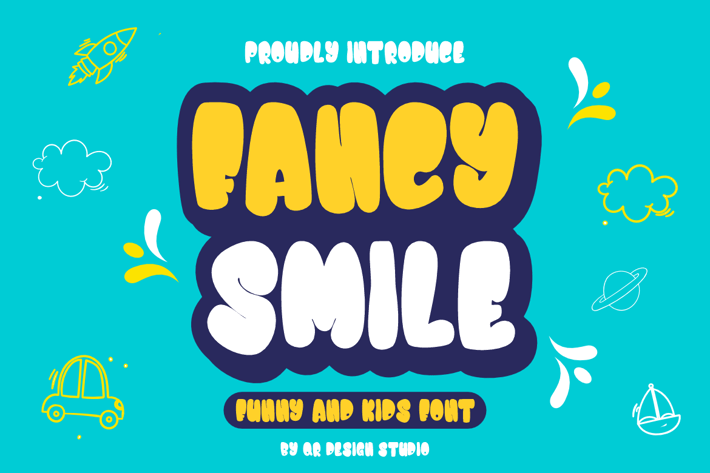
Fancy Smile - Cute Fonts
Fancy Smile - Cute Font is a bold and authentic display font.
The font is suitable for any branding project like kids, food, poster, logo, sport, and many more.